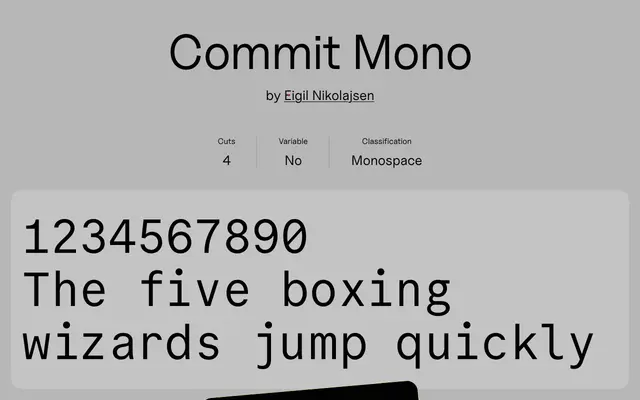
Commit Mono
A free monospace typeface by Eigil Nikolajsen, available in 4 cuts under the SIL Open Font Licence.
Released under the SIL Open Font Licence 1.1, Commit Mono is free for both commercial and personal use. The family comes in 4 cuts with no variable font offering. It is a practical, fixed-width option suited to coding environments and developer tooling.
Explicitly classified as Monospace by the foundry; a fixed-width typeface with 4 cuts suited to coding and terminal use.